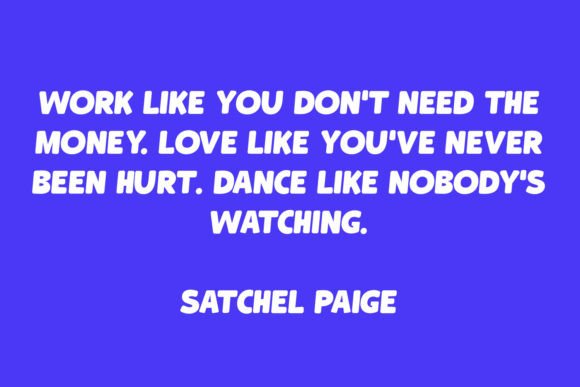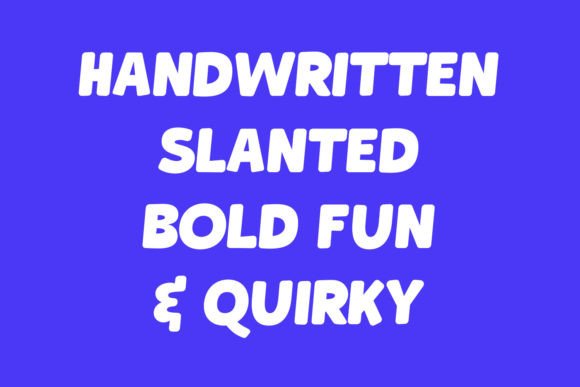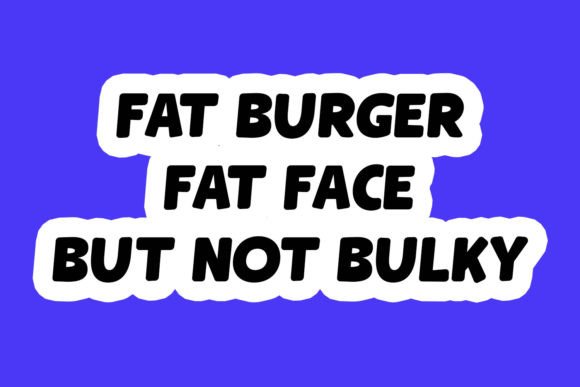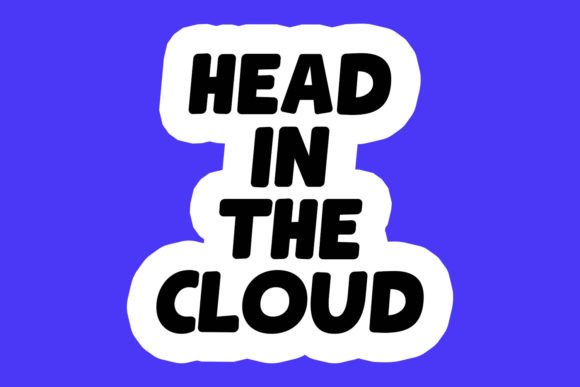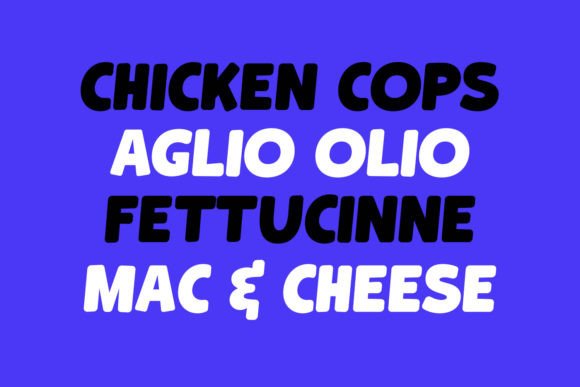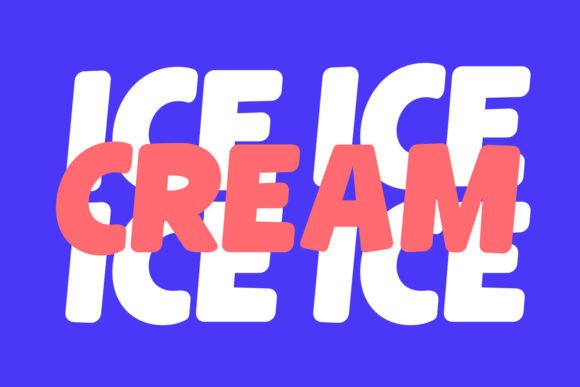
Introducing Bucker Font: Elevate Your Designs with a Casual Display Twist
In the world of typography, fonts play a pivotal role in conveying messages, evoking emotions, and creating lasting impressions. For designers and crafters seeking a unique edge, Bucker Font emerges as a standout choice. This casual display font, characterized by its slanted medium low contrast stroke, injects fun and personality into any project. Let’s dive deeper into what makes Bucker Font a must-have in your typographic arsenal.
Key Features of Bucker Font
- Slanted Medium Low Contrast Stroke: The distinctive slanted strokes of Bucker Font lend it a dynamic and informal vibe, perfect for projects that require a bit of flair.
- Fun Character with Ligatures: Bucker includes a bit of ligature, adding an artistic touch to your text and making it more engaging.
- Alternates for Creative Freedom: The font comes with alternates, providing you with the flexibility to experiment and find the perfect fit for your design.
Bucker Font is not just limited to one type of project. Its versatility makes it suitable for a wide range of applications:
- Logo Design: Create memorable and impactful logos with Bucker’s unique style.
- Social Media: Stand out on social media platforms with eye-catching text that captures your audience’s attention.
- Movie and Book Titles: Add a touch of personality to movie titles and book covers, making them more appealing to potential viewers and readers.
- Short and Long Text: Whether you’re working with short phrases or lengthy paragraphs, Bucker Font maintains its charm and readability.
- Secondary Text: Pair Bucker with sans or serif fonts for a compelling combination that elevates your design.
Why Choose Bucker Font?
Bucker Font is more than just a typeface; it’s a tool for creativity and expression. Here are a few reasons why designers and crafters are gravitating towards Bucker:
- Easy to Read: Despite its casual and artistic nature, Bucker Font maintains a high level of readability, making it perfect for both digital and print projects.
- Unique Aesthetic: In a sea of similar fonts, Bucker stands out with its distinctive slanted strokes and ligatures, ensuring your work doesn’t go unnoticed.
- Highly Versatile: From branding to editorial design, Bucker Font adapts seamlessly, making it a valuable addition to your font library.
Tips for Making Stunning Work with Bucker Font
To truly harness the potential of Bucker Font, consider the following design tips:
- Experiment with Alternates: Don’t be afraid to try out the alternate characters to see what works best for your project.
- Mix and Match: Combine Bucker with other fonts to create contrast and add depth to your design.
- Play with Sizes: Utilize different font sizes to create a hierarchy of information and add visual interest.
- Consider Your Audience: Tailor your use of Bucker Font to resonate with your target audience, adjusting the tone and style as needed.
Bucker Font is a dynamic and versatile typeface that can elevate a wide range of design projects. Its unique blend of casual charm and creative features makes it an excellent choice for designers looking to add a bit of personality to their work. Whether you’re crafting a logo, designing social media content, or working on a book or movie title, Bucker Font offers the perfect combination of style, readability, and creativity. Make stunning work with Bucker Font and discover a world of typographic possibilities.